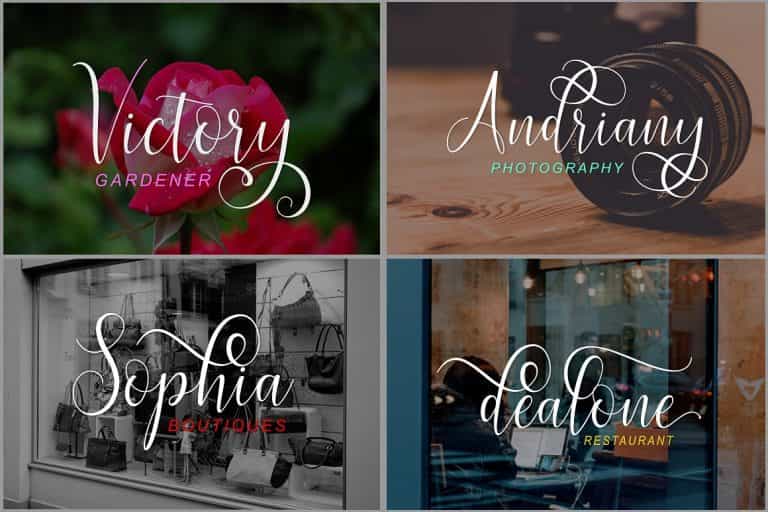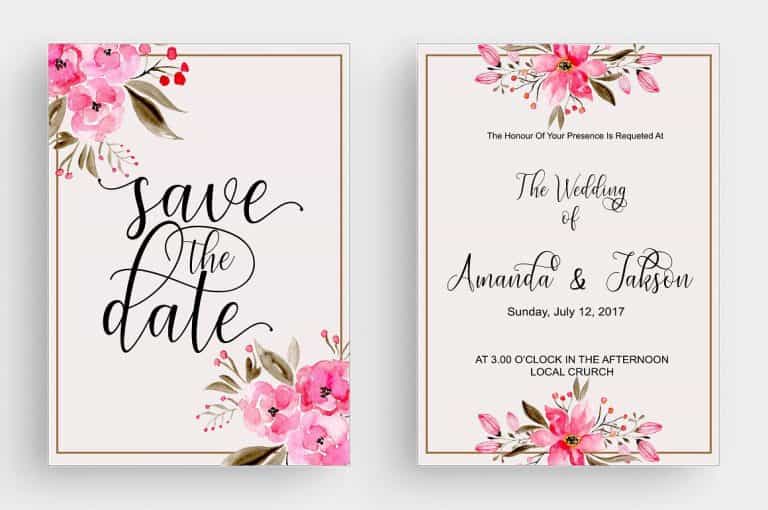
Introducing Brillyo Font. Brillyo Font Family is a modern script with a handmade calligraphy style, decorative characters and dancing baseline!Best for making a more charismatic impression or to add that unique touch to your projects and branding, greeting cards, wedding invitation, banner design, name card creation, lettering style choice in fonts pairing and so on.